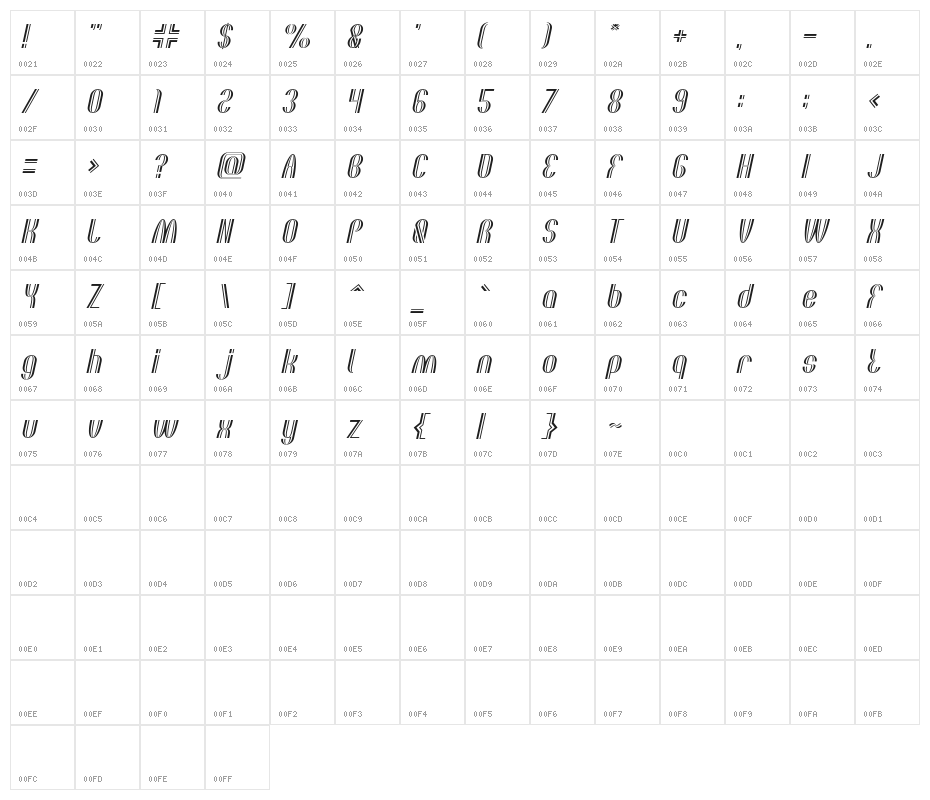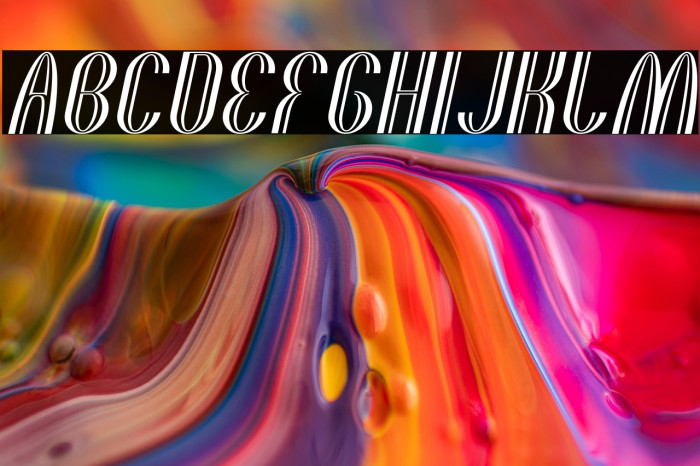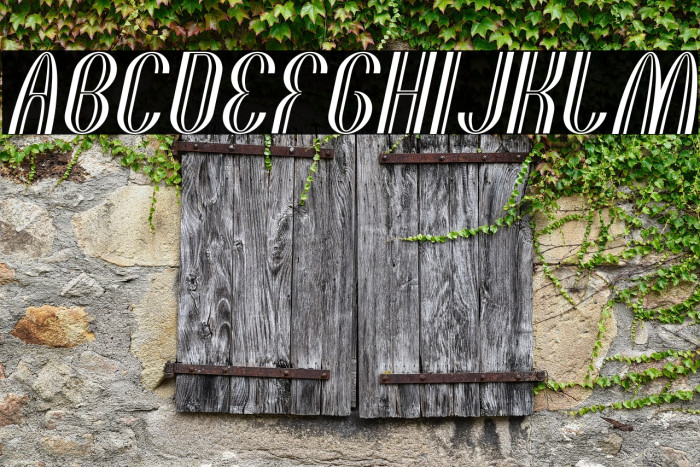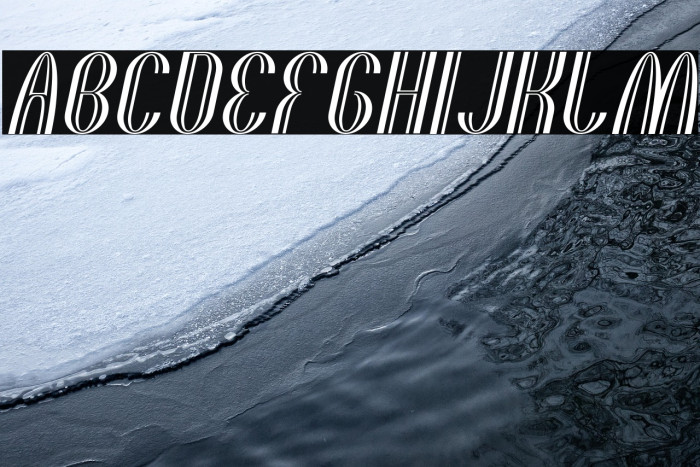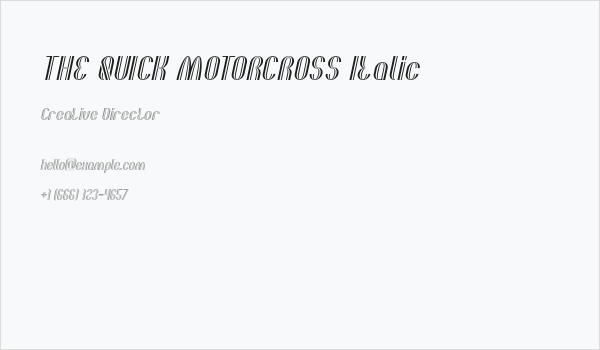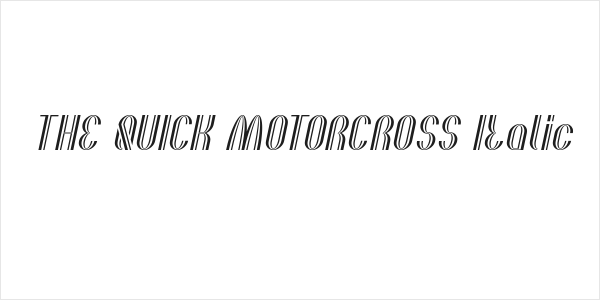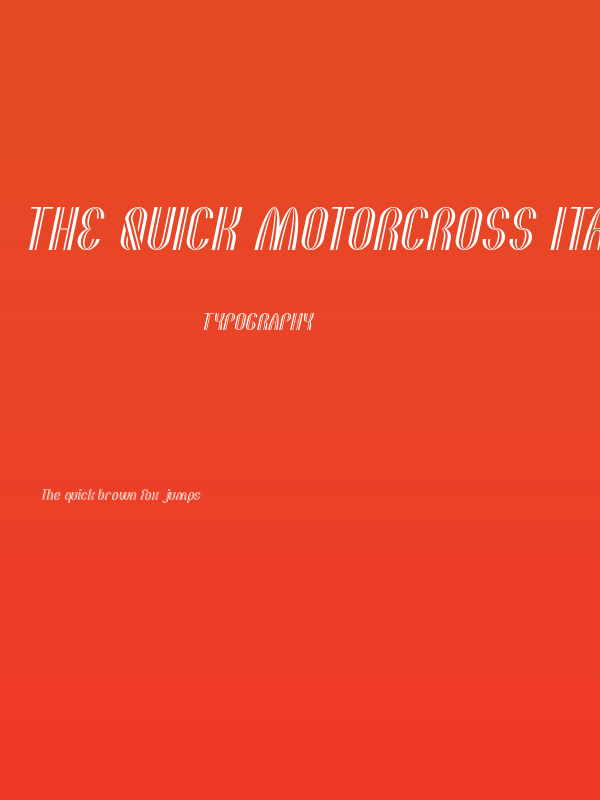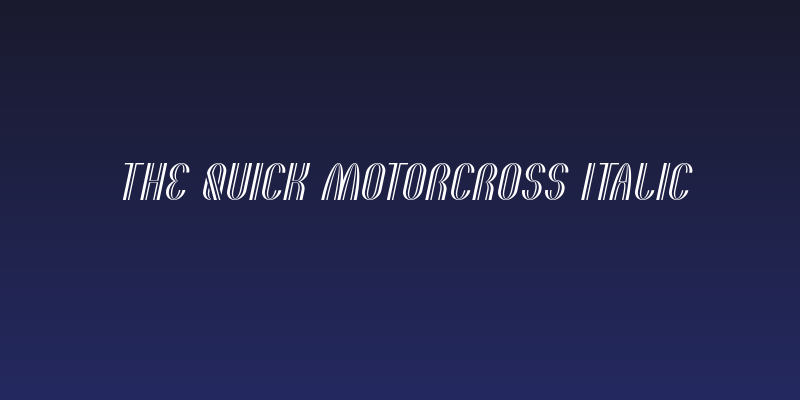
THE QUICK MOTORCROSS Italic Font
THE QUICK MOTORCROSS Italic Description
This font features a dynamic and modern design with a distinct italic slant, creating a sense of motion and energy. The characters are composed of bold, parallel lines that give a sense of depth and dimension. The uppercase letters have a unique, elongated form with sharp angles, while the lowercase letters maintain a consistent style with a slightly softer curvature. The numerals and special characters follow the same design principles, ensuring a cohesive look across all glyphs. This font's high contrast between thick and thin strokes adds to its striking appearance, making it ideal for attention-grabbing designs.